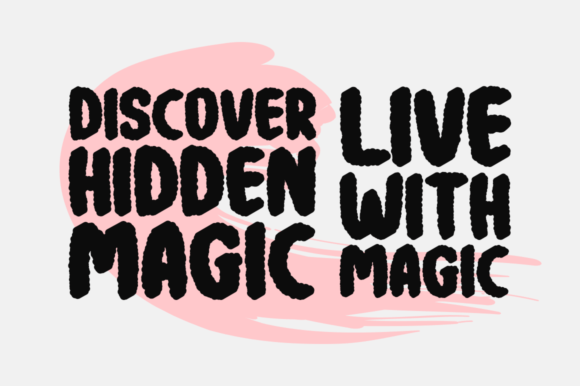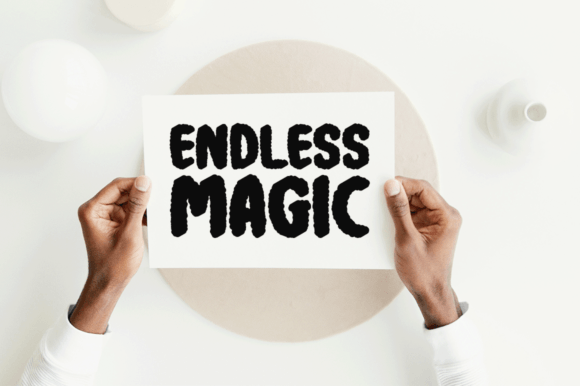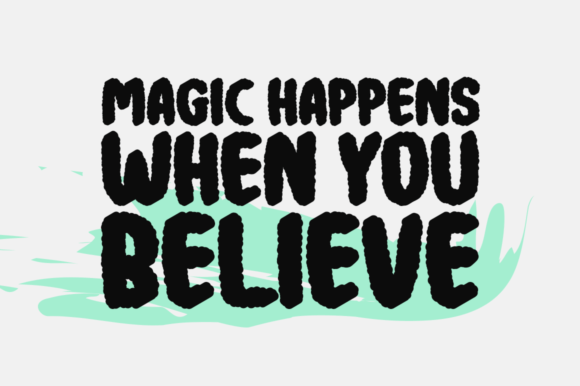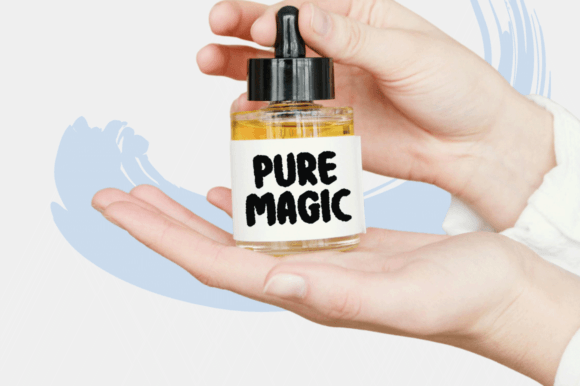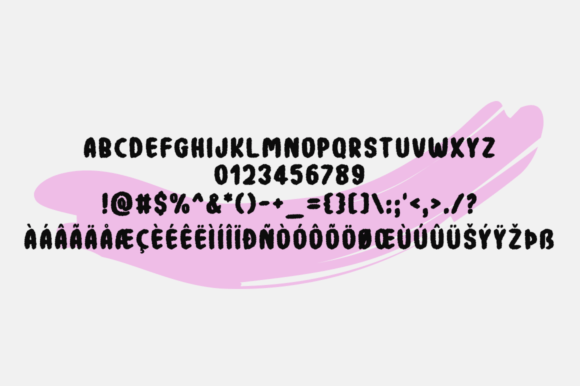
Unlocking the Power of Creativity with Make Magic Font
Have you ever been in the middle of a creative project, pouring your heart and soul into a design, only to feel like it’s missing that extra oomph? The spark that sets it apart from the rest? For designers, finding that special something can be the difference between a good design and a truly magical one.
That’s where Make Magic Font comes in – a display font that’s perfect for designers looking to add a touch of magic to their creations. With its rough, powerful character, this font is ideal for a wide range of imaginative applications, from print materials to website headers and everything in between.
Key Features of Make Magic Font
- High-quality font with a transparent background, ideal for creative projects that require a unique design resource.
- Unique characteristic: The font’s magic design element can be adjusted in size and color, allowing designers to create a truly custom look.
- Perfect for designers, artists, and writers who need a high-quality font for their creative projects, whether it’s a book, magazine, or website.
Honest Review: Make Magic Font
I recently stumbled upon the Make Magic Font and was excited to give it a try in my latest creative project. As a designer, I’m always on the lookout for high-quality design resources that can elevate my work and save me time.
The Make Magic Font definitely delivers on that front. The font is a free download, which is always a plus, and the transparent background makes it super easy to work with. I was able to customize it quickly and seamlessly integrate it into my design.
- Transparent background for flexibility
- Great for designers of all skill levels
- ⚠️ Limited customization options, which may not be ideal for designers who like to get creative
Overall, I’m really impressed with the Make Magic Font and would definitely recommend it to fellow designers. It’s a great resource to have in your toolkit, especially for free. Just be aware of the limitations, and you’ll be all set for a successful design project!
Make Magic Font is a versatile design resource that can be used in a variety of creative projects, such as:
- Brochures
- Posters